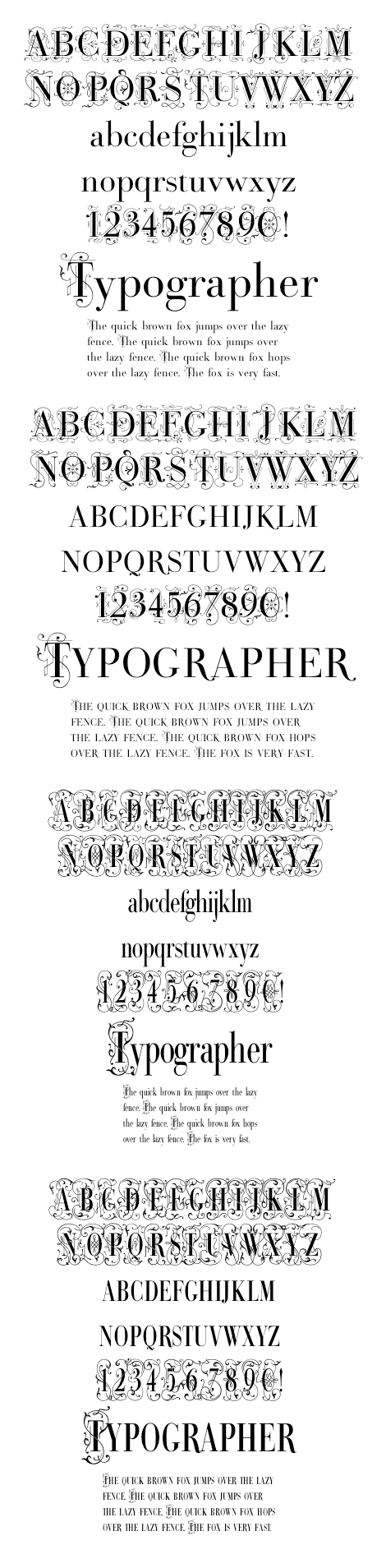
Bodoni Classic Deco One + Two Set (Wiescher Design)
Bodoni Classic Deco is against all rules. Giambattista Bodoni himself would probably hate me for doing it; he was a real purist. The whole idea of the Bodoni typeface is no embellishments and here I go and decorate those nice clear letters. Shame on me! But I find this is a very nice and useful typeface for all kinds of cards and certificates. So I just did it for all of you out there that are not born purists, but want a little embellishment to their lives. And to make things worse, I added a Small Caps cut. I even decorated it. Enjoy! Yours, breaking all the rules, Gert WiescherFONTHAUS END USER LICENSE AGREEMENT